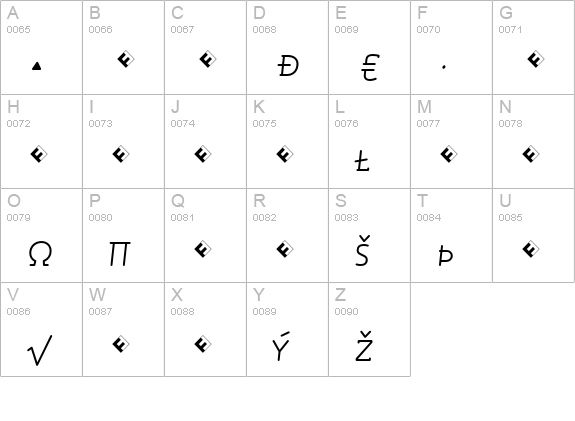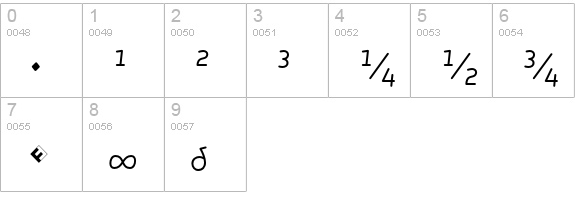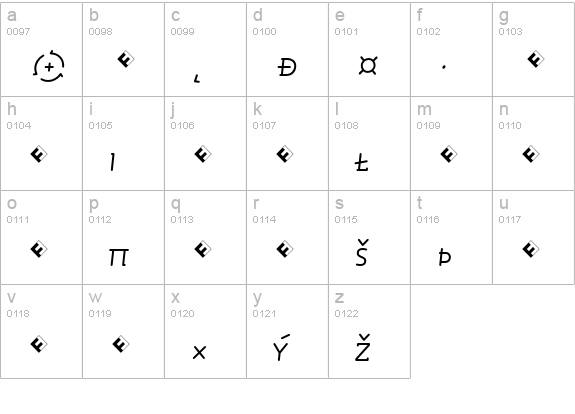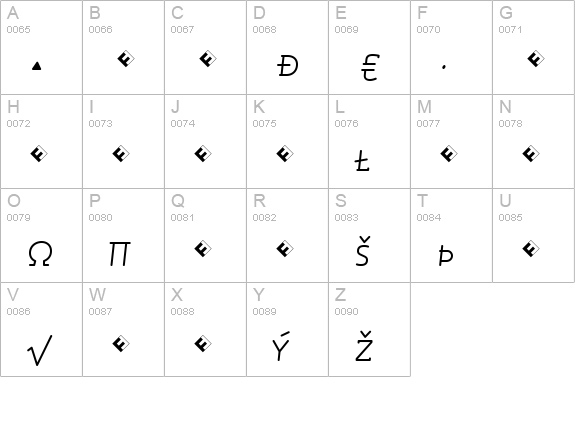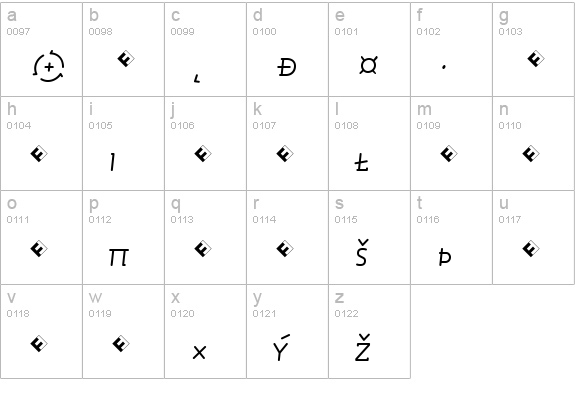
Introducing Roice-LightItalicSCExpert font, a sleek and elegant typeface that exudes sophistication and modernity. Its delicate italic design brings a touch of grace and style to any project, making it perfect for adding a touch of class to your designs. This font is not only beautifully crafted but also incredibly versatile, suitable for a wide range of design projects including branding, advertising, editorial work, and more. Its expertly designed ligatures and glyphs make it stand out from the crowd, giving your text a unique and polished look. And the best part? Roice-LightItalicSCExpert font is available for free download at FontsMarket.com. Yes, you read that right - you can access this stunning font at no cost, making it a valuable addition to your font collection without breaking the bank. Don't miss out on the opportunity to elevate your designs with the Roice-LightItalicSCExpert font. Download it today and unleash your creativity with this sophisticated and stylish typeface.